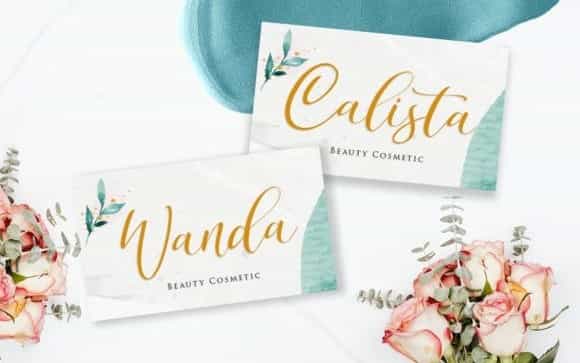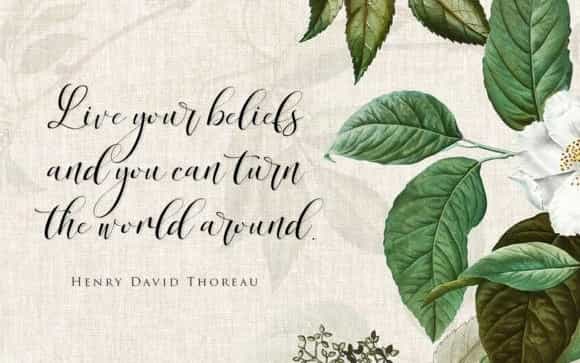
Jartafisa is a powerful and playful script that has been modeled after the beauty of flowers. Become fond of its natural beauty and make any spring craft even more interesting.